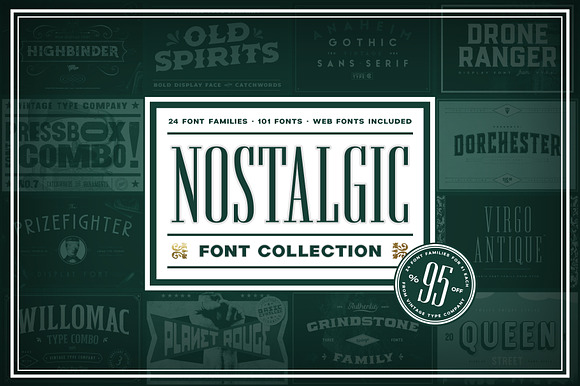
Looking to introduce some nostalgia into your projects? This font bundle has you covered.
The Nostalgic Font Collection from VTC offers a wide range of distinct typographic styles from popular motifs of the past at a huge savings.
• 24 Vintage Inspired Font Families
Authentico Display Font:
Dorchester Display Font:
Drone Ranger Display Font:
Grindstone Font Family:
Highbinder Display Font:
Life Is Jazz Mono Script:
Merchant Street Display Sans:
Midnight Owl Display Font:
Mystery Tour Layered Font:
Navy Queen Nautical Display Font:
Old Spirits Display Font:
Planet Rouge Display Font:
Pressbox Letterpress Font Combo:
Prizefighter Deco Display Font:
Queen Street Layered Sans:
Southbank Display Sans:
Sugar Boats Display Font:
Virgo Antique Display Serif: